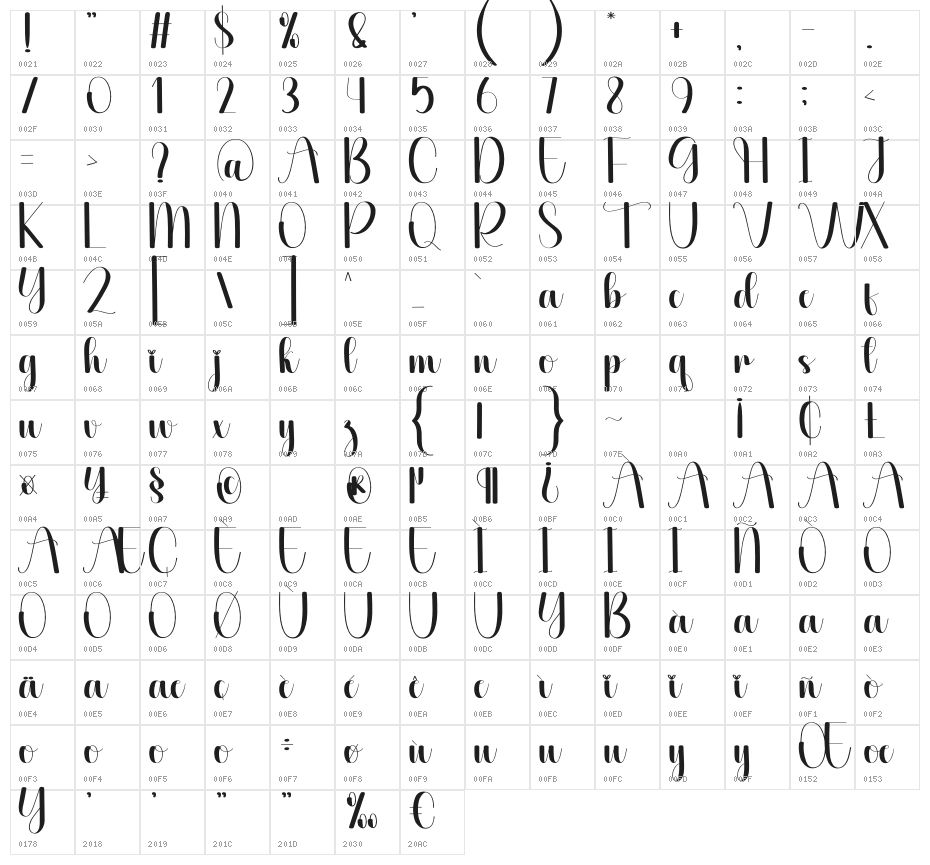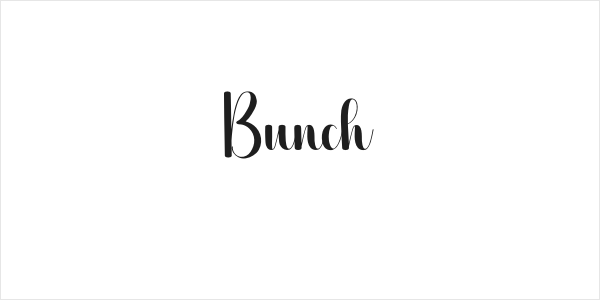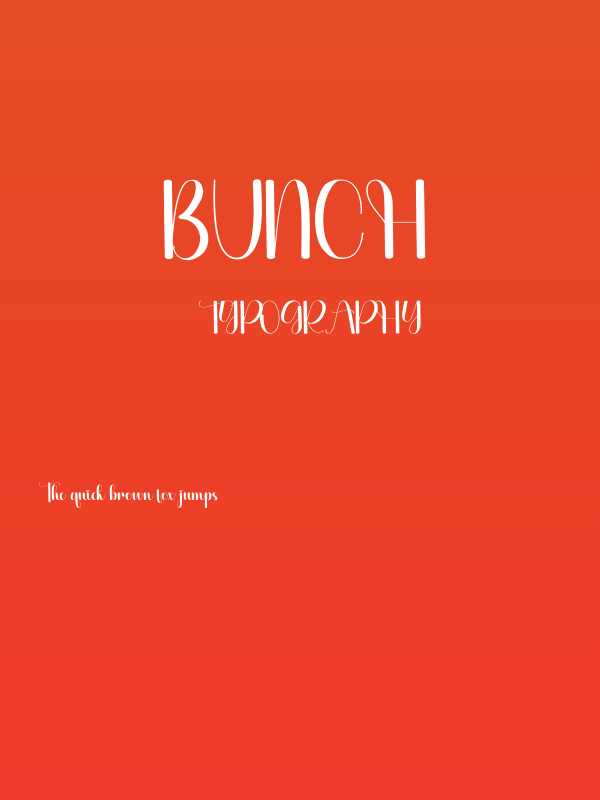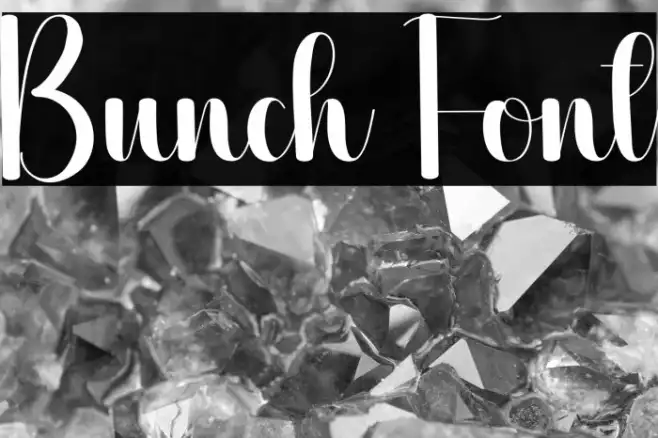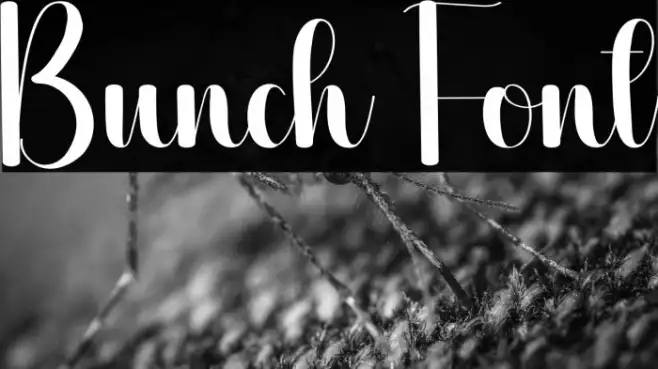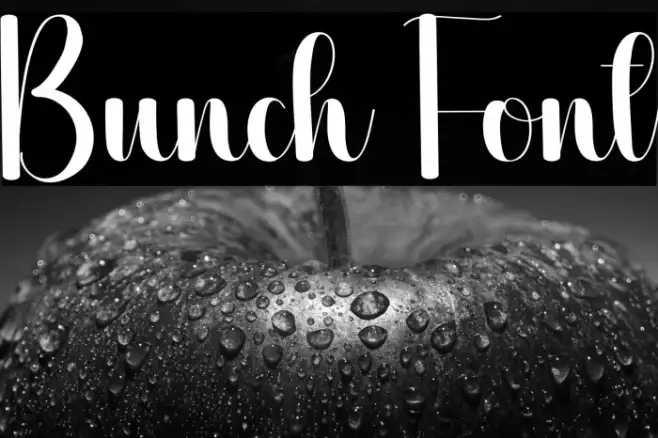
Bunch Font
Bunch Description
A decorative script font with a playful and elegant style, featuring high contrast and flowing curves.
| Proposed Projects | Invitations, greeting cards, branding, and decorative headlines. |